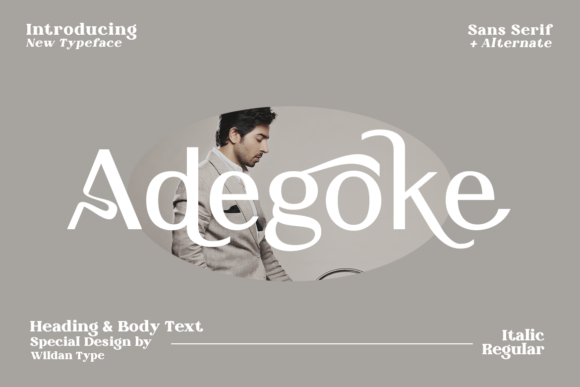
The Adegoke Font: Elevate Your Designs with Elegance
I’ll never forget the time I was working on a project for a high-end fashion brand. I had spent hours perfecting the layout, but something was missing – the right font. I scrolled through my font library, but nothing seemed to fit the sleek, modern vibe I was going for. That’s when I stumbled upon Adegoke, a stylish and elegant sans serif font that instantly elevated my design. In this article, I’ll share my experience with Adegoke, its features, and how to make the most of it in your designs.
An Honest Review of Adegoke Font
• ✨ Elegant and sophisticated design that’s perfect for high-end projects
• ✅ Highly versatile and can be used for a wide range of topics and industries
• 🔥 Excellent for digital and print projects, from business cards to billboards
• 👍 Well-spaced and readable, even at small font sizes
While Adegoke is an excellent font, there are a few things to keep in mind:
• ⚠️ Some users may find the font a bit too minimalist for certain projects
• 🤔 Limited availability of certain OpenType features in certain software
The Backstory of Adegoke Font
Adegoke is a font designed with elegance and sophistication in mind. While the designer’s inspiration is not publicly known, it’s clear that Adegoke was created to elevate designs and add a touch of luxury to any project.
Font Name Adegoke Font
Author Wildan Type
Q: What type of projects is Adegoke best suited for?
Adegoke is a versatile font that can be used for a wide range of projects, from business cards to billboards. Its elegant and sophisticated design makes it perfect for high-end projects, but it can also be used for more casual designs.
Q: Is Adegoke a difficult font to read?
No, Adegoke is a well-spaced and readable font, even at small font sizes. Its clean and modern design makes it easy to read, making it perfect for body text and headings.